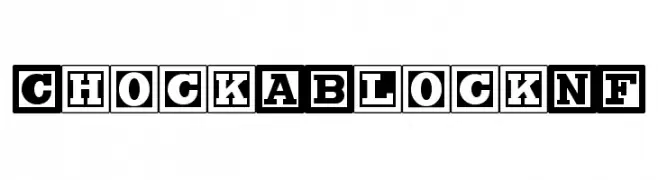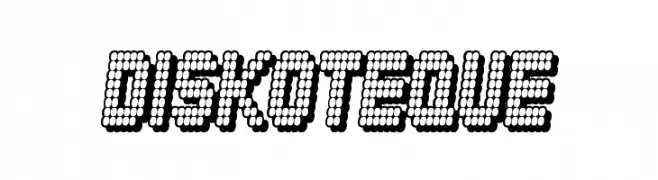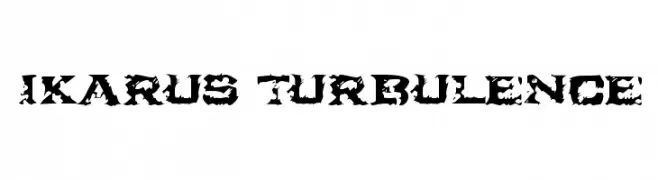
A playful, dotted font with a retro digital feel, ideal for creative and attention-grabbing designs.
A bold, distressed font with jagged edges and a turbulent, rebellious style.
Bold, boxed uppercase font with a vintage-modern style.
A bold, angular font with a structured, formal style inspired by early 20th-century German design.
A classic, medieval-inspired font with sharp, angular lines and intricate detailing.